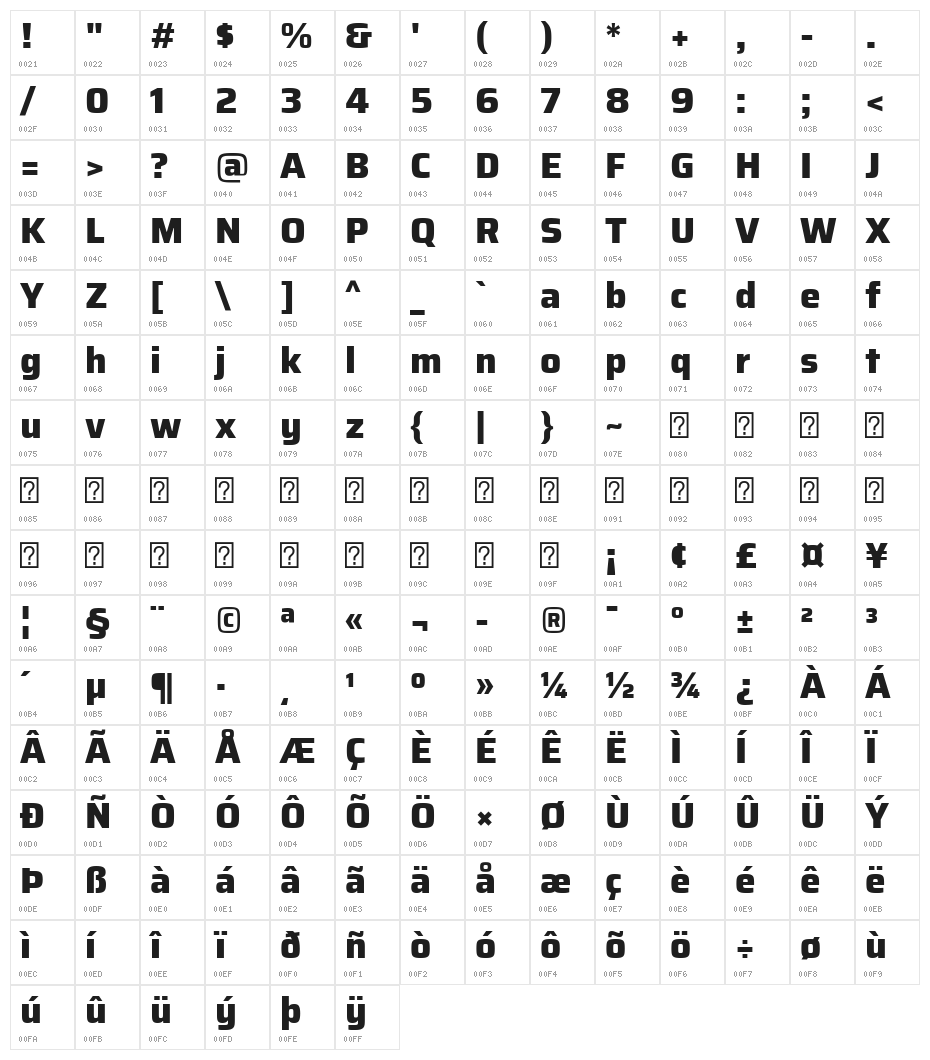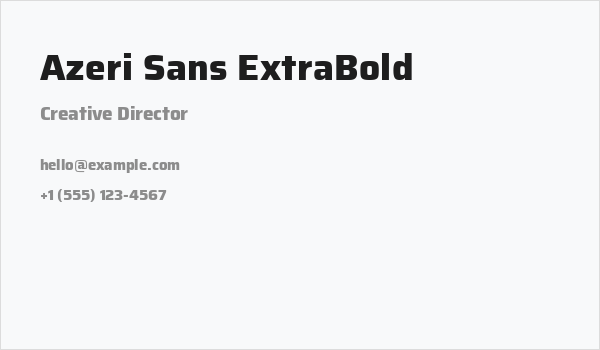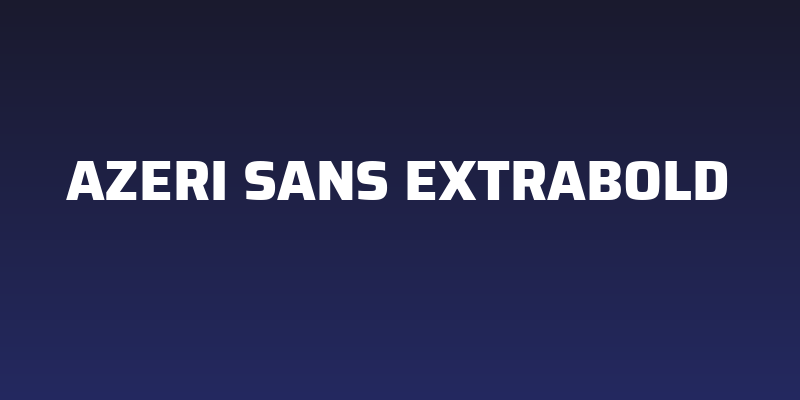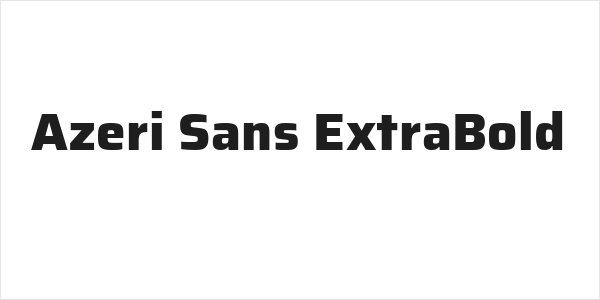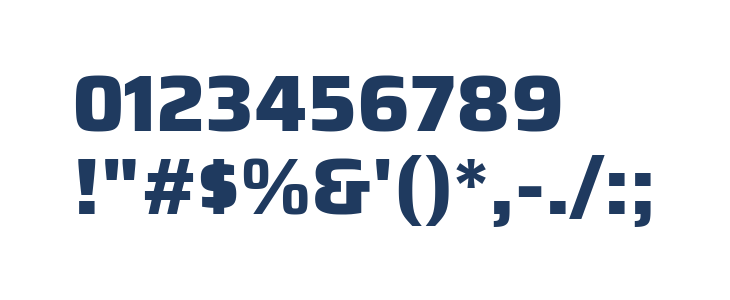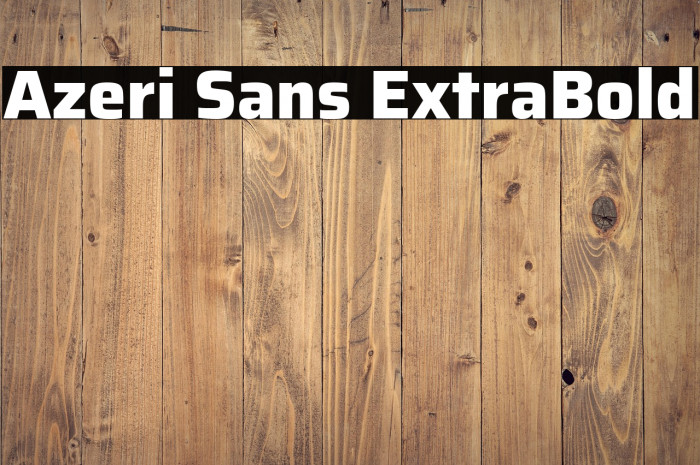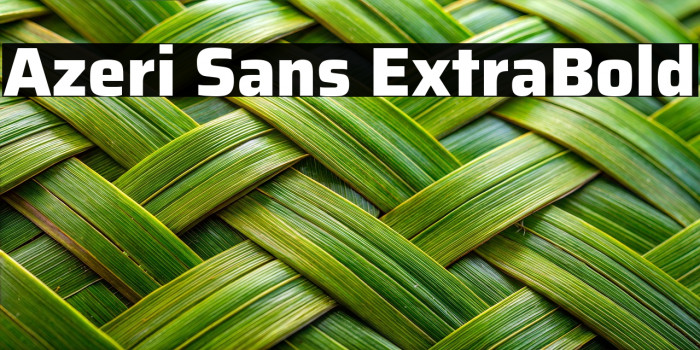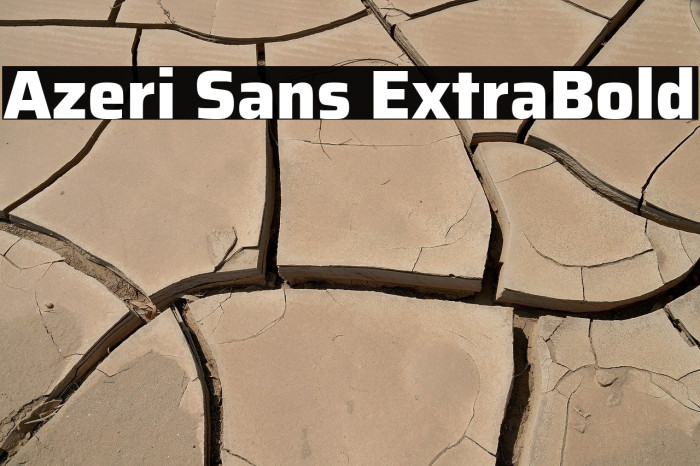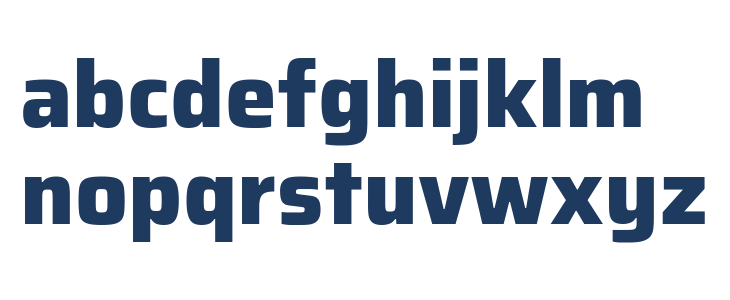
Azeri Sans ExtraBold Font
Azeri Sans ExtraBold Description
This typeface features a bold and assertive design, characterized by its thick strokes and strong presence. The uppercase letters are uniform in height, with a slightly condensed appearance that enhances readability while maintaining a modern aesthetic. The lowercase letters complement the uppercase with a consistent weight and rounded edges, providing a balanced look. Numerals are clear and robust, ensuring they stand out in any context. Special characters are designed with the same boldness, ensuring they integrate seamlessly with the rest of the character set. This font's overall style is contemporary and impactful, making it suitable for a variety of design applications.
| Use Case | Headlines, Logos, Advertising |
| Proposed Projects | Ideal for branding, advertising, headlines, and any design project requiring a strong visual impact. |